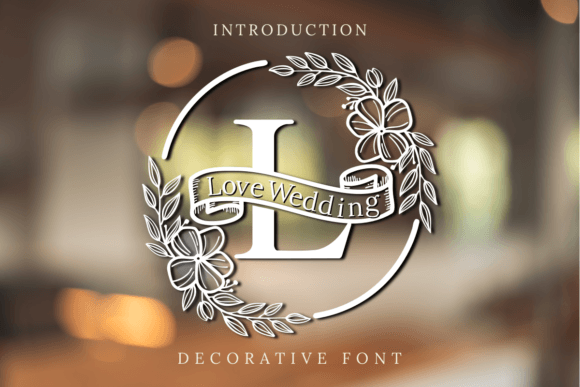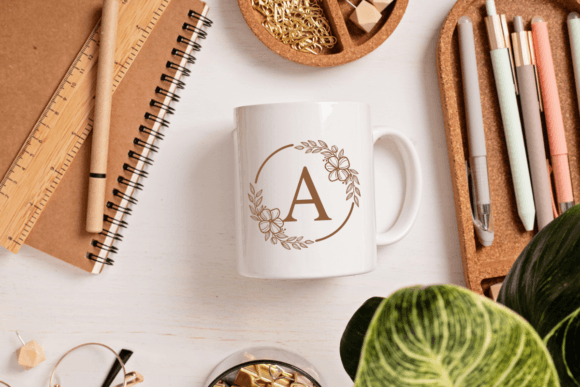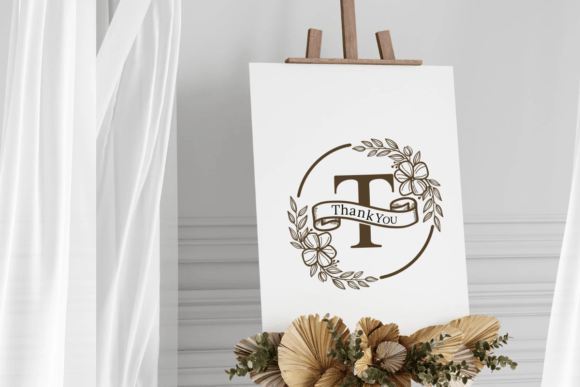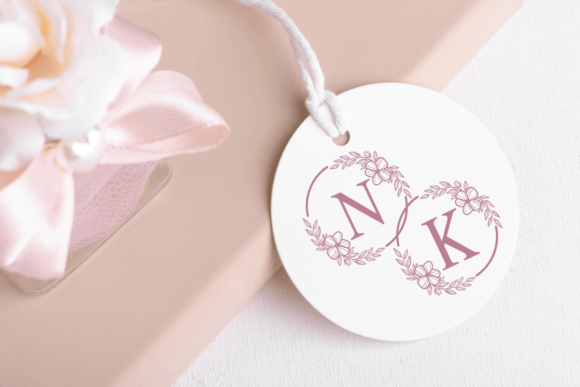
Love Wedding Font
About the Love Wedding Font
From logos to headlines, the Love Wedding Font is the perfect choice for making a lasting impression. Love Wedding is an organic and beautiful decorative font, featuring lovely ornaments. No matter the topic, this font will be an incredible asset to your fonts’ library, as it has the potential to elevate any creation.
Love Wedding’s ornate style is ideal for headlines, short text blocks on invitations, or logos requiring a touch of elegance. It excels in wedding-related projects, branding for boutiques, or packaging for luxury goods. However, its decorative nature makes it unsuitable for body text or UI elements; the intricate details become illegible at smaller sizes and hinder readability in extended passages.
Its personality is undeniably romantic and sophisticated. To balance this, pair it with a clean sans-serif like Montserrat for body copy or a classic serif like Garamond for a more traditional feel. For a more modern twist, a geometric sans-serif such as Futura could create interesting contrast.
Consider using a playful script font like Pacifico for secondary text elements to complement the ornate nature of Love Wedding, offering visual interest without overwhelming the design. Avoid pairing it with other highly decorative fonts, as this would create visual clutter and reduce readability.
Love Wedding Font Usage Examples
Love Wedding Font Example